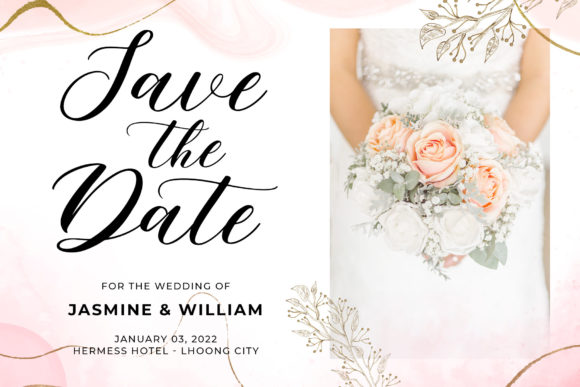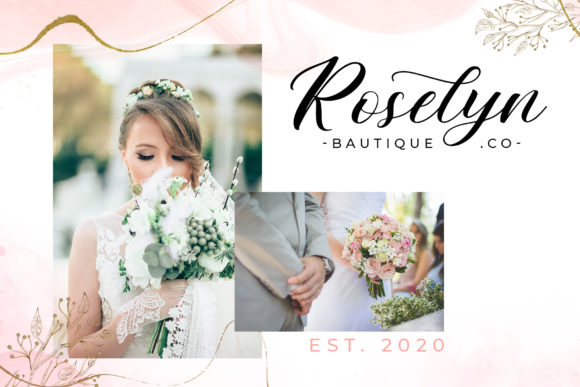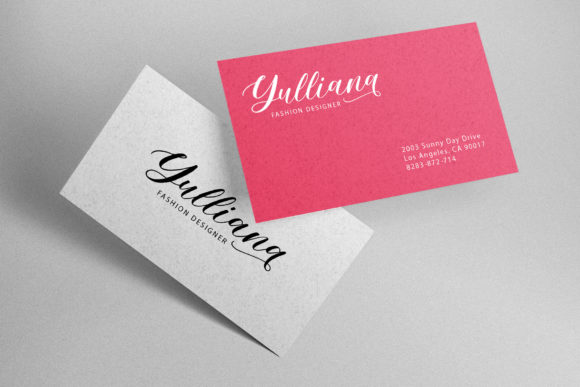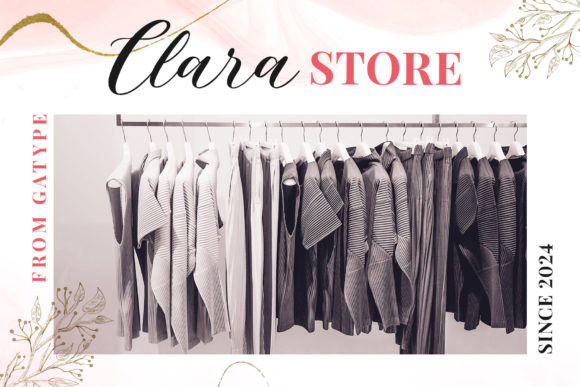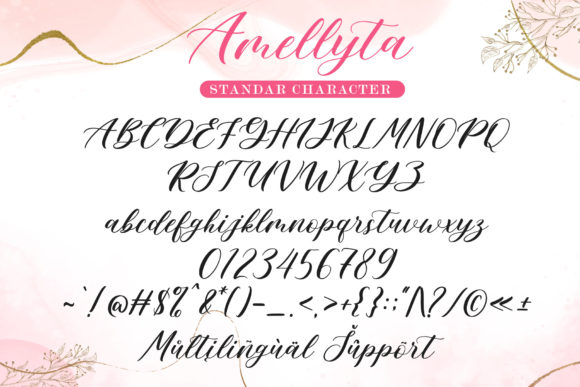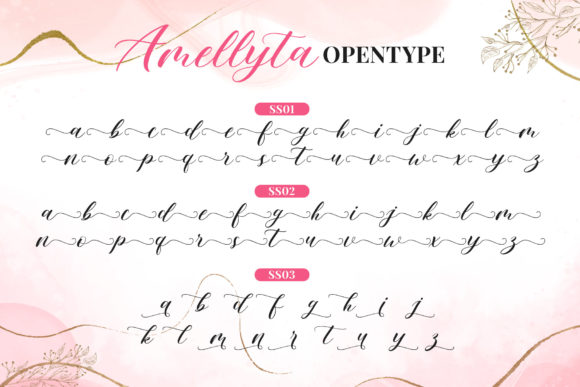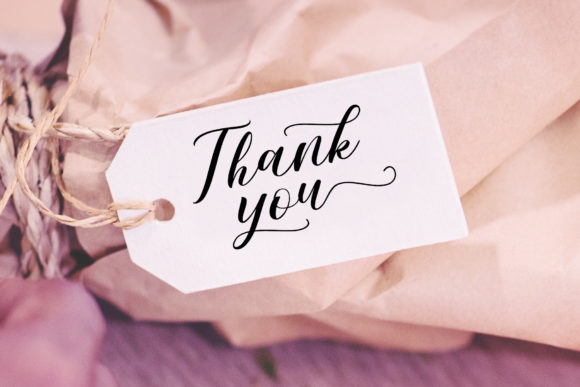
Amellyta Font
About Amellyta Font
Embrace the contemporary allure of Amellyta Script, a modern calligraphy design that seamlessly blends elegance and beauty in every stroke. This font is a testament to sophistication, offering a versatile and enchanting aesthetic that suits a myriad of purposes. From logos to product packaging, wedding invitations to branding, headlines to signage, labels to signatures, book covers to posters, quotes, and beyond—Amellyta Script is the epitome of timeless style.
The graceful and beautiful strokes of Amellyta Script elevate your design projects, infusing them with a touch of modernity and refined charm. Whether you’re aiming to create a distinctive logo or packaging that stands out on the shelves, Amellyta Script provides the perfect balance of elegance and contemporary appeal.
For special occasions like weddings, this script font transforms invitations into works of art, setting the tone for a memorable celebration. Its versatility extends to branding, allowing businesses to establish a visual identity that exudes sophistication. Headlines and signage gain a fresh and captivating look, ensuring your messages leave a lasting impression.
Amellyta Script isn’t confined to traditional uses—it excels in diverse applications. From labels on products to personalized signatures, from book covers to eye-catching posters, this font adapts effortlessly to various creative contexts. Quotes become more than just words; they become visual expressions of style and grace.
One of Amellyta Script’s standout features is its PUA Unicode encoding. This means you have full access to an array of additional characters without the need for special software. The font’s flexibility empowers designers to explore and incorporate unique elements seamlessly, enhancing the overall creative process.
In summary, Amellyta Script is a modern calligraphy font that transcends ordinary design. It invites you to weave an elegant narrative across logos, packaging, invitations, branding, headlines, signage, labels, signatures, book covers, posters, quotes, and beyond. With its PUA Unicode encoding, Amellyta Script opens up a world of possibilities, allowing you to unlock the full potential of this exquisite font without limitations. Elevate your designs with the timeless beauty and contemporary flair of Amellyta Script.